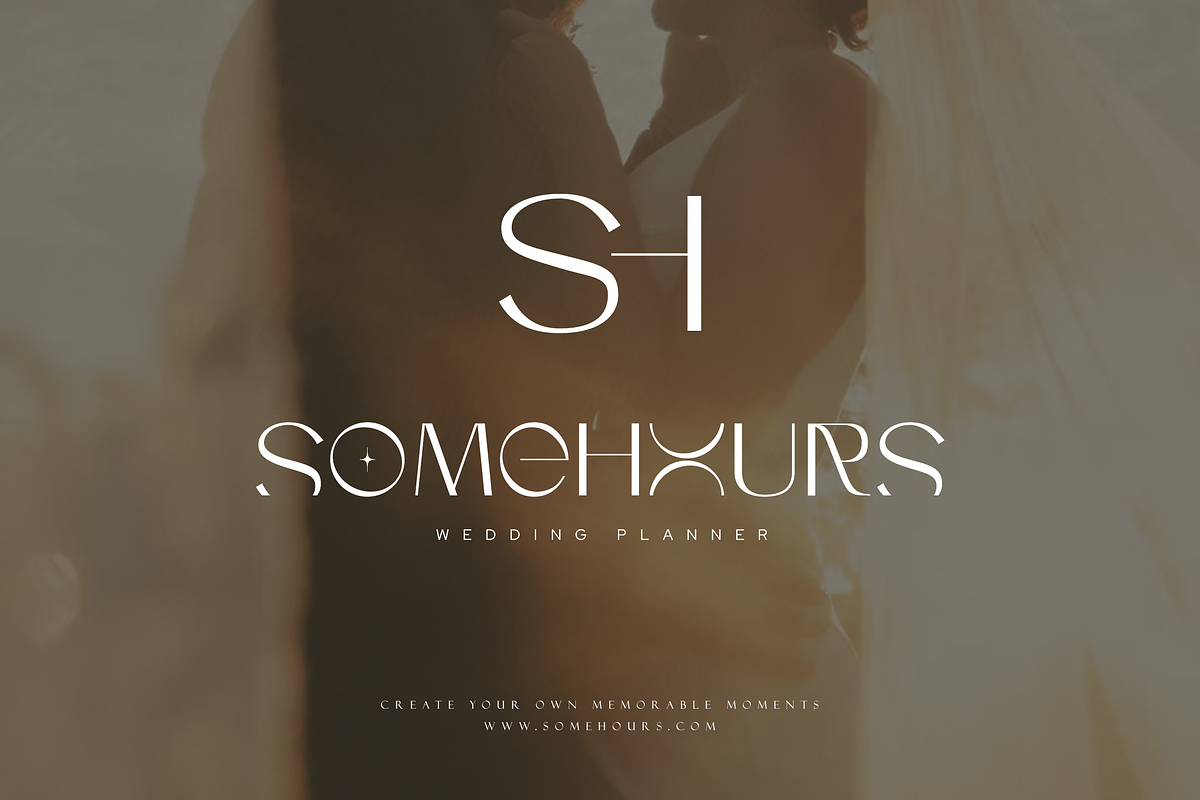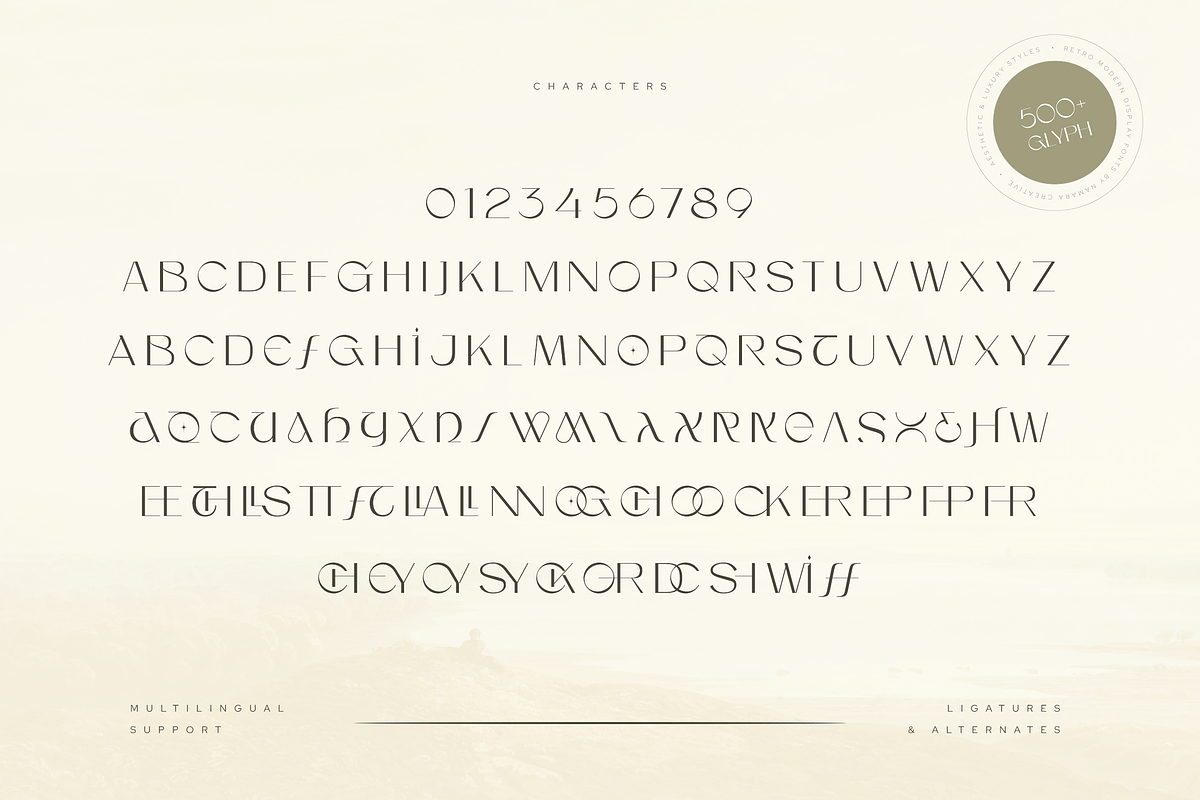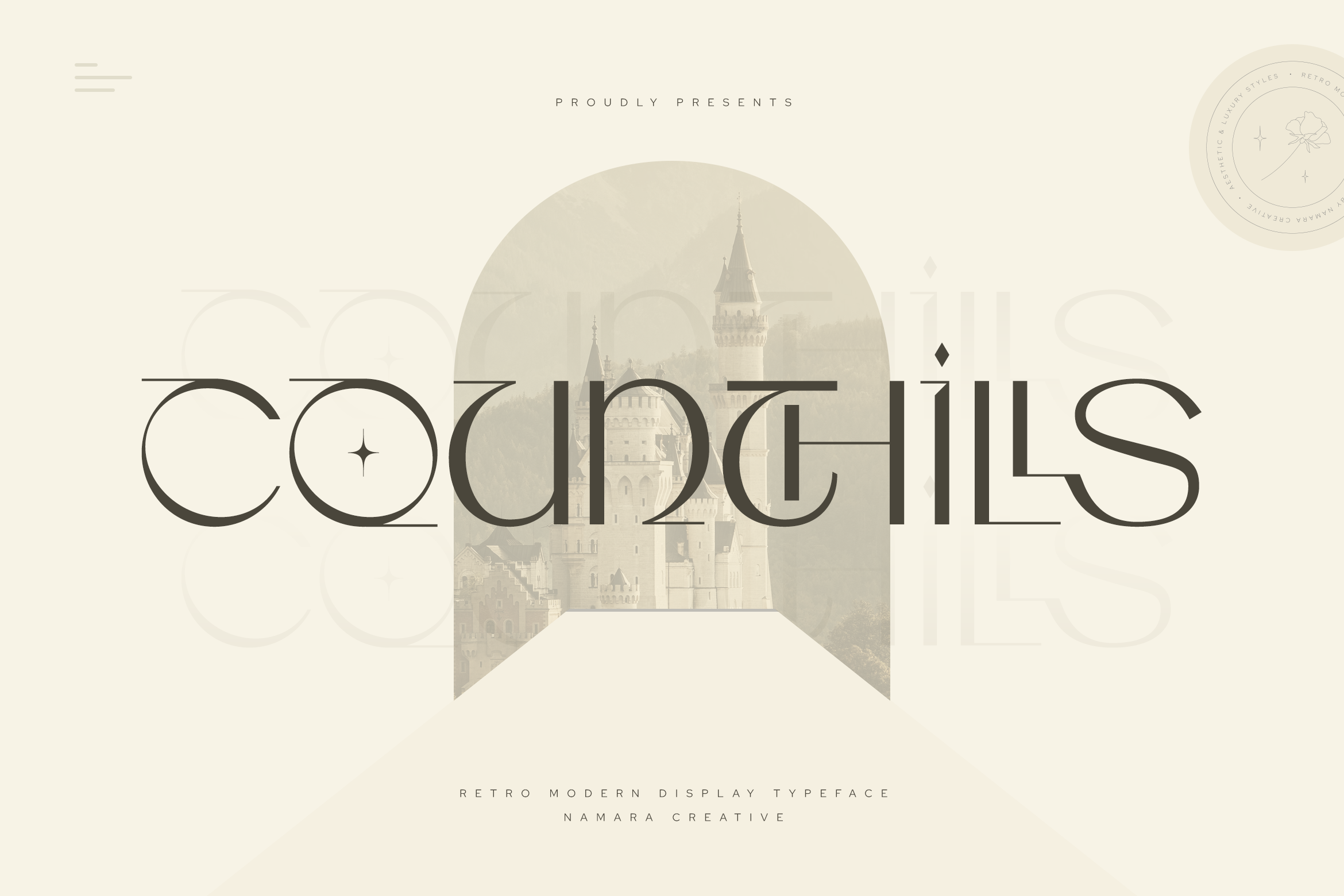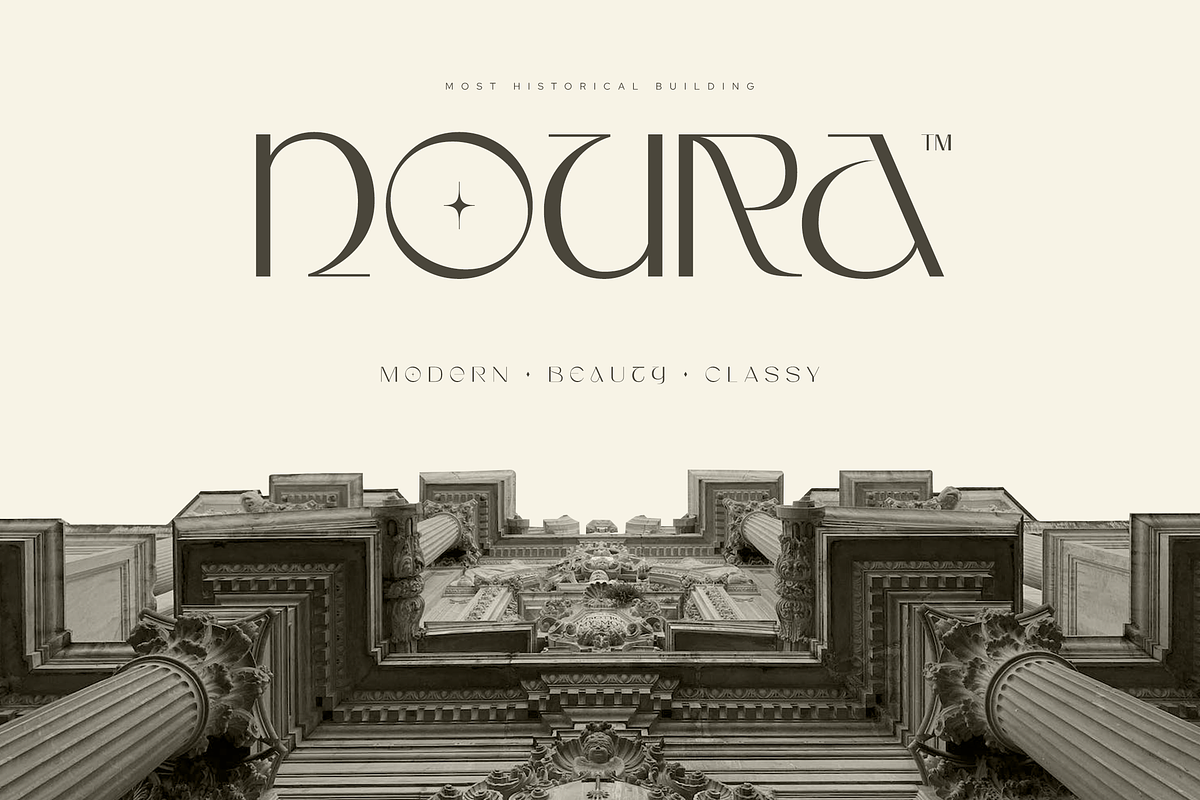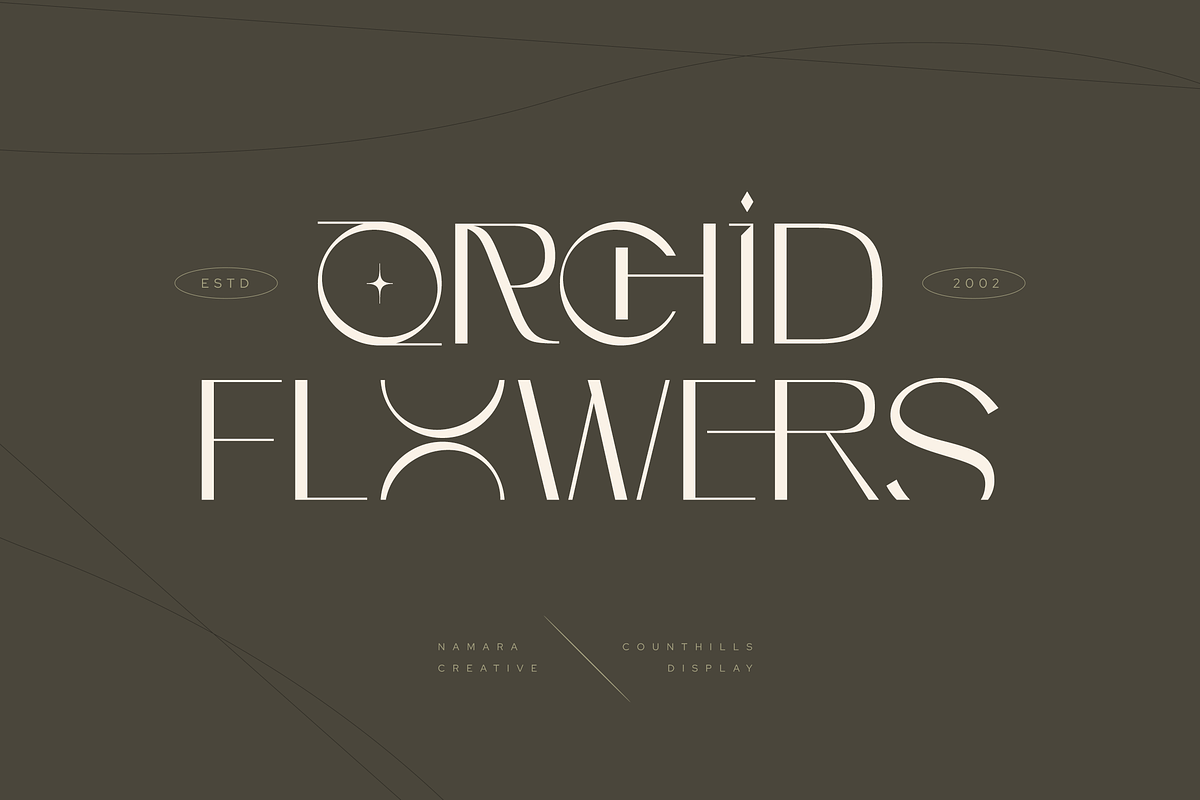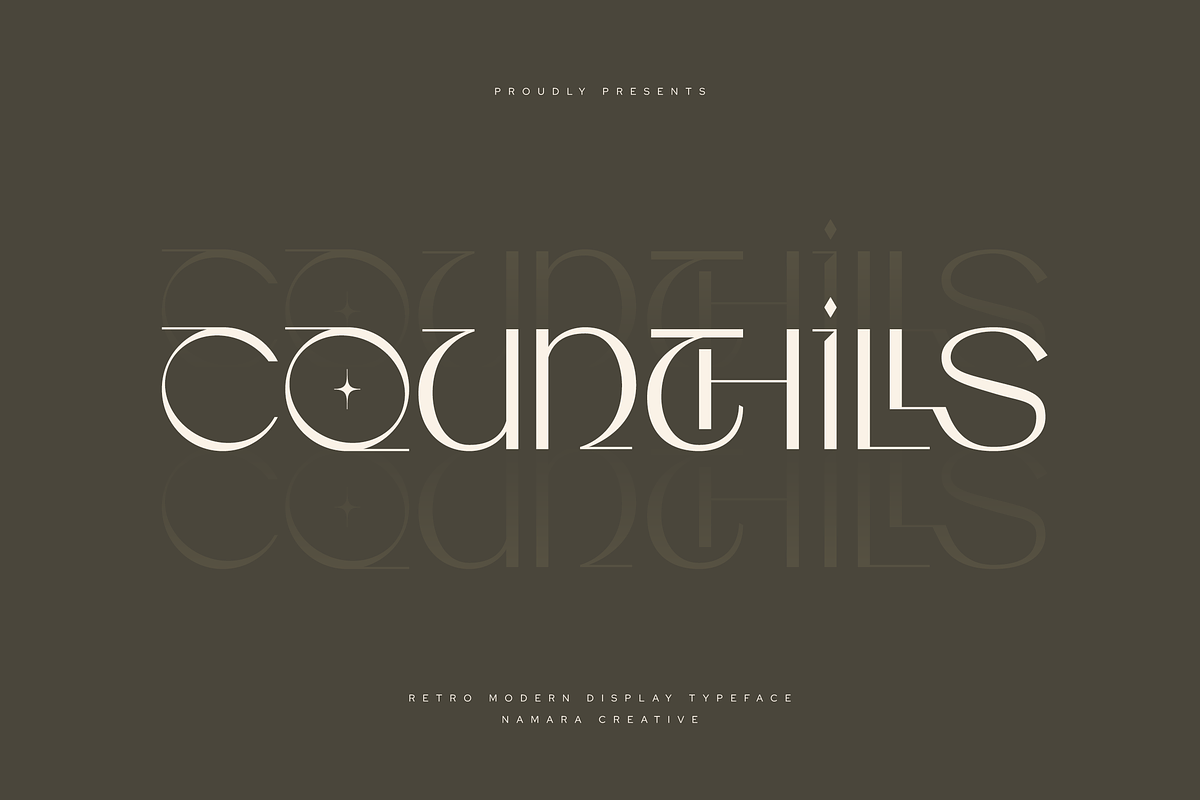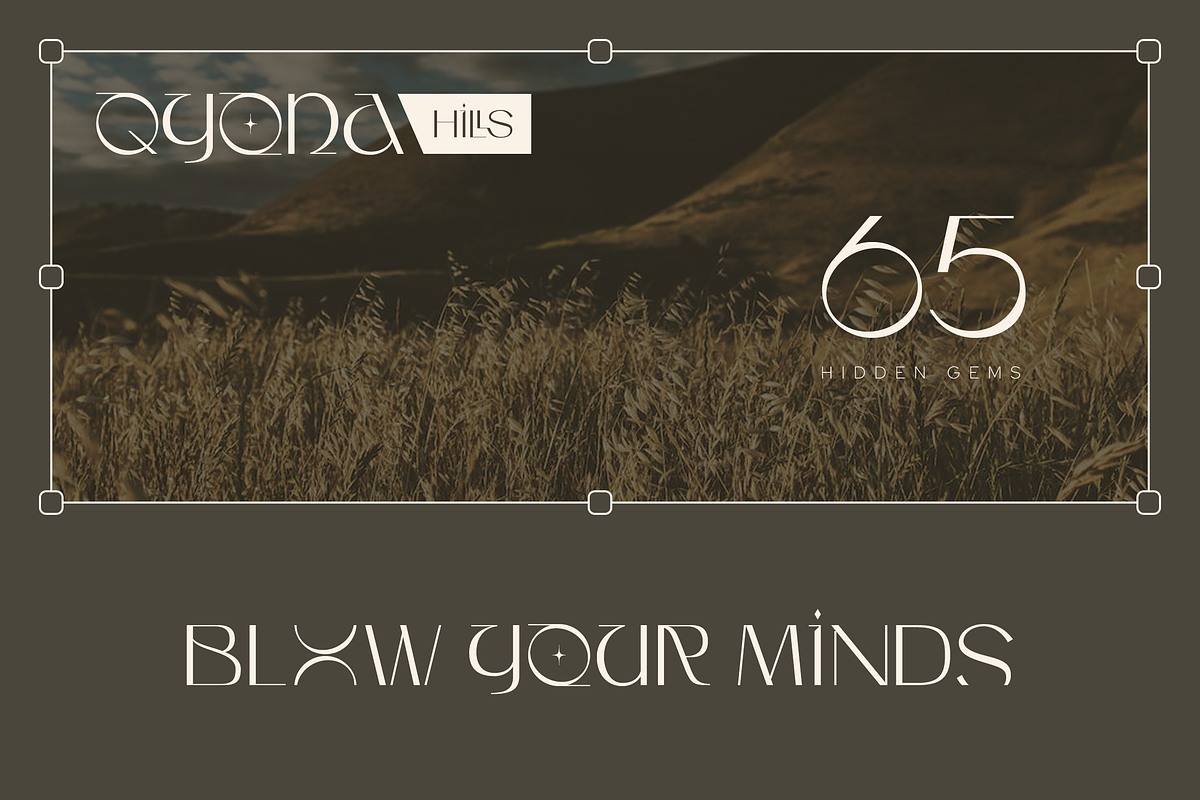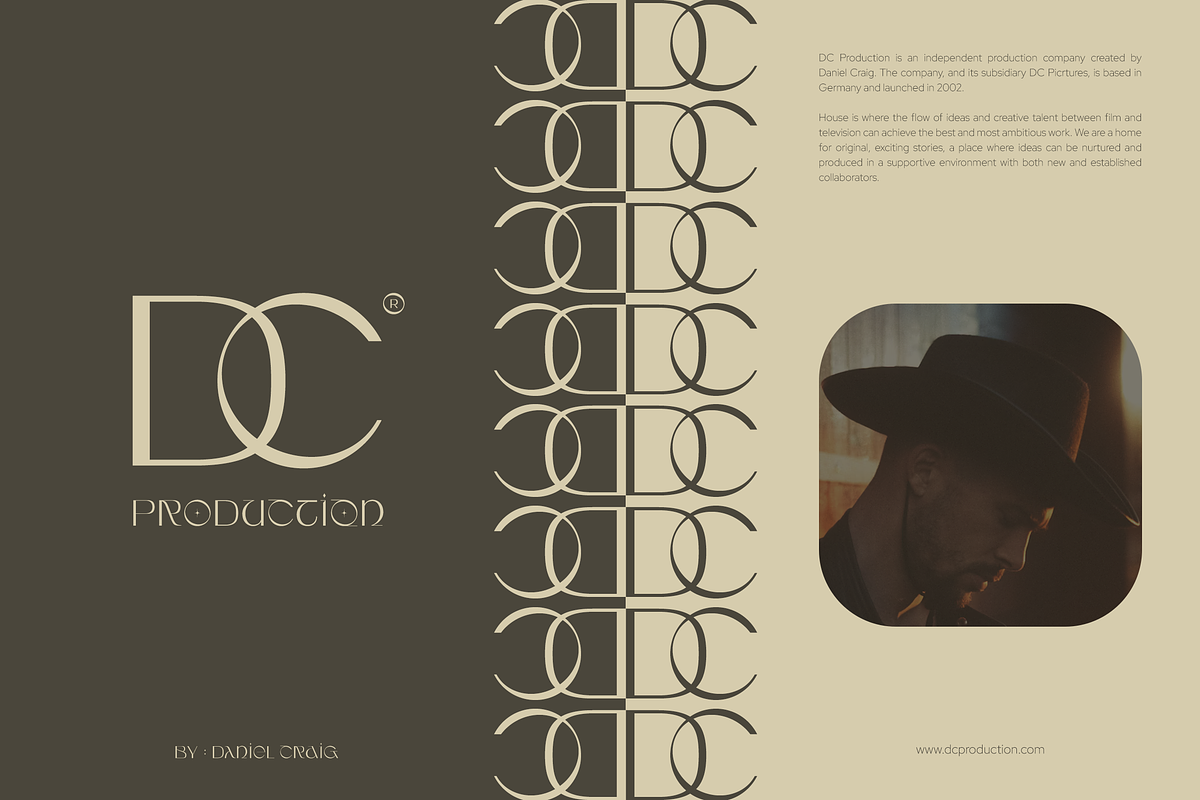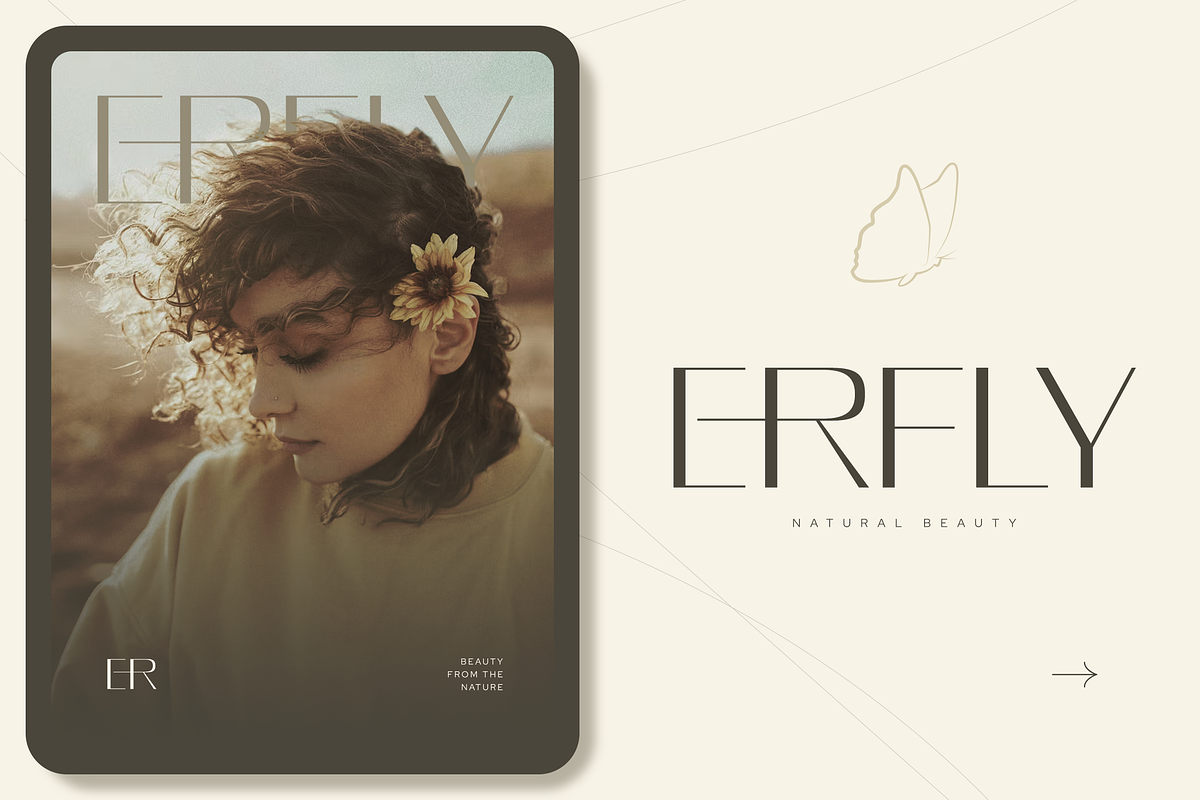
Counthills Contemporary Display Font
A modern contemporary display typeface, can be used for large headings and titles, characterized by clean lines and stylish design elements. It conveys innovation and sophistication, creating a strong visual impact in modern design projects like websites, ads, logos, and branding materials. Display your message more attractive and meaningful.
- Alternates, Ligatures & Multilingual Support.
- Modern Contemporary Theme Font.